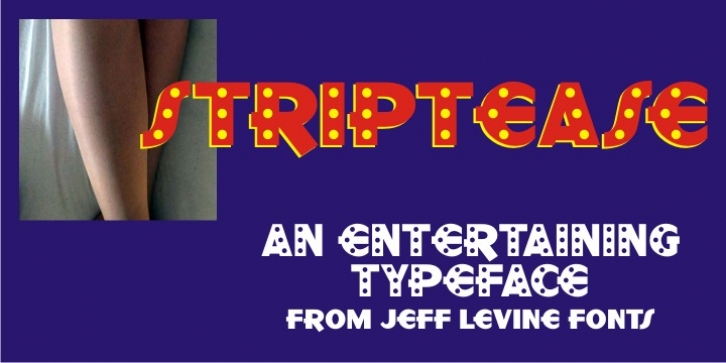
Striptease JNL was designed by Jeff Levine and published by Jeff Levine. Striptease JNL contains 1 style.
Striptease JNL is the bold, brash, 'your-name-in-lights' companion to Showgirl JNL, and was inspired by a scene in an old television show depicting a burlesque house of the 1930s.